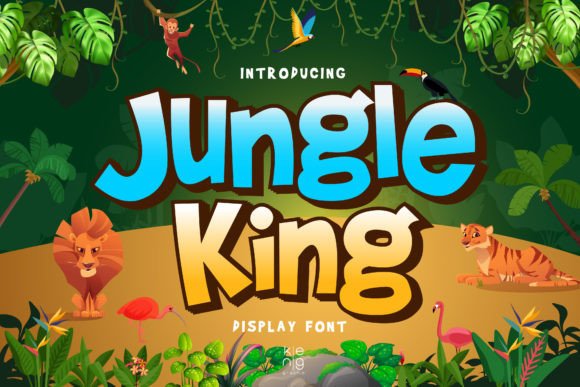
Jungle King: The Bold Font That Commands Attention
If you're looking for a font that exudes energy, confidence, and a sense of adventure, Jungle King is the perfect choice. This cartoon-style display font isn't just visually striking—it's designed to make a statement. Whether you're working on a creative project, designing merchandise, or crafting marketing materials, Jungle King adds a unique flair that stands out in any context.
What Makes Jungle King Stand Out?
Jungle King combines playful elements with a strong, assertive presence. Its bold strokes and dynamic curves give it a lively, almost animated feel. Unlike more traditional fonts, which can feel static or formal, Jungle King brings a sense of movement and excitement. It's ideal for projects that need to grab attention quickly and leave a lasting impression.
This font isn't just about style—it's about functionality. Its clarity ensures that even when used at larger sizes, the letters remain legible. This makes it versatile enough to work in both digital and print formats without losing its impact.
Real-World Applications of Jungle King
One of the most obvious places where Jungle King shines is in comic book design. Its energetic look matches the tone of many graphic novels and superhero stories. Publishers often use bold, distinctive fonts to create a visual identity that resonates with readers. Jungle King can help define the brand of a comic series or give a cover a more dynamic feel.
Online game developers also find value in using Jungle King. Game titles, character names, and in-game UI elements benefit from a font that feels vibrant and engaging. It can be especially effective for games with an adventurous or action-packed theme, helping to reinforce the overall aesthetic and mood.
For event organizers, Jungle King is a go-to option for adventure-themed posters. Whether it's a scavenger hunt, a survival challenge, or a themed party, this font adds a sense of excitement that draws people in. Its boldness ensures that the message is clear and memorable, even from a distance.
Marketing and Branding Opportunities
Businesses targeting younger demographics often turn to Jungle King for branding purposes. Startups, tech companies, and lifestyle brands looking to project a youthful, daring image can use this font to create logos, banners, and social media graphics. It helps convey a sense of innovation and courage that appeals to modern audiences.
Social media platforms are another area where Jungle King excels. Eye-catching posts, headlines, and captions using this font can increase engagement and drive traffic. Its visual appeal makes it ideal for campaigns that want to stand out in crowded feeds.
Merchandise designers also appreciate Jungle King for its versatility. T-shirts, mugs, and other promotional items featuring this font can become conversation starters. The font's boldness ensures that the message is clear and impactful, whether it's a slogan, a band name, or a personal motto.
Who Benefits From Using Jungle King?
Graphic designers seeking a fresh, eye-catching font will find Jungle King useful for a wide range of projects. It offers a balance between creativity and readability, making it suitable for both experimental designs and professional work.
Entrepreneurs and small business owners can leverage Jungle King to create a strong visual identity. For those who want to communicate energy and confidence, this font provides a powerful tool to do so without overcomplicating their design choices.
Content creators and influencers may also find value in using Jungle King. Whether they're designing YouTube thumbnails, Instagram posts, or podcast covers, this font adds a unique touch that sets their content apart from the competition.
Considerations When Using Jungle King
While Jungle King is highly effective in many situations, it's important to consider the context in which it's used. Overusing it in large blocks of text can reduce readability. It's best suited for headlines, titles, and short phrases rather than long paragraphs.
Users should also be mindful of the platform or medium they're working with. Some digital environments may not support all font styles, so it's wise to test how Jungle King looks across different devices and screen sizes. Print applications may require additional adjustments to ensure optimal results.
Finally, while Jungle King has a strong, confident personality, it may not be the best fit for every project. If the goal is to convey professionalism, simplicity, or elegance, a more subdued font might be more appropriate. However, for projects that aim to inspire, entertain, or energize, Jungle King is an excellent choice.
Final Thoughts on Jungle King
Jungle King isn't just a font—it's a design element that can transform the way a message is perceived. Its bold, cartoon-like style makes it ideal for projects that require a sense of adventure, youthfulness, and courage. From comic books to online games, from event posters to social media graphics, this font offers a versatile solution for a variety of creative needs.
Whether you're a designer, a marketer, or a creator looking for a unique visual identity, Jungle King provides a powerful way to make your work stand out. With its ability to capture attention and convey energy, it's a font that delivers real value in the right context.